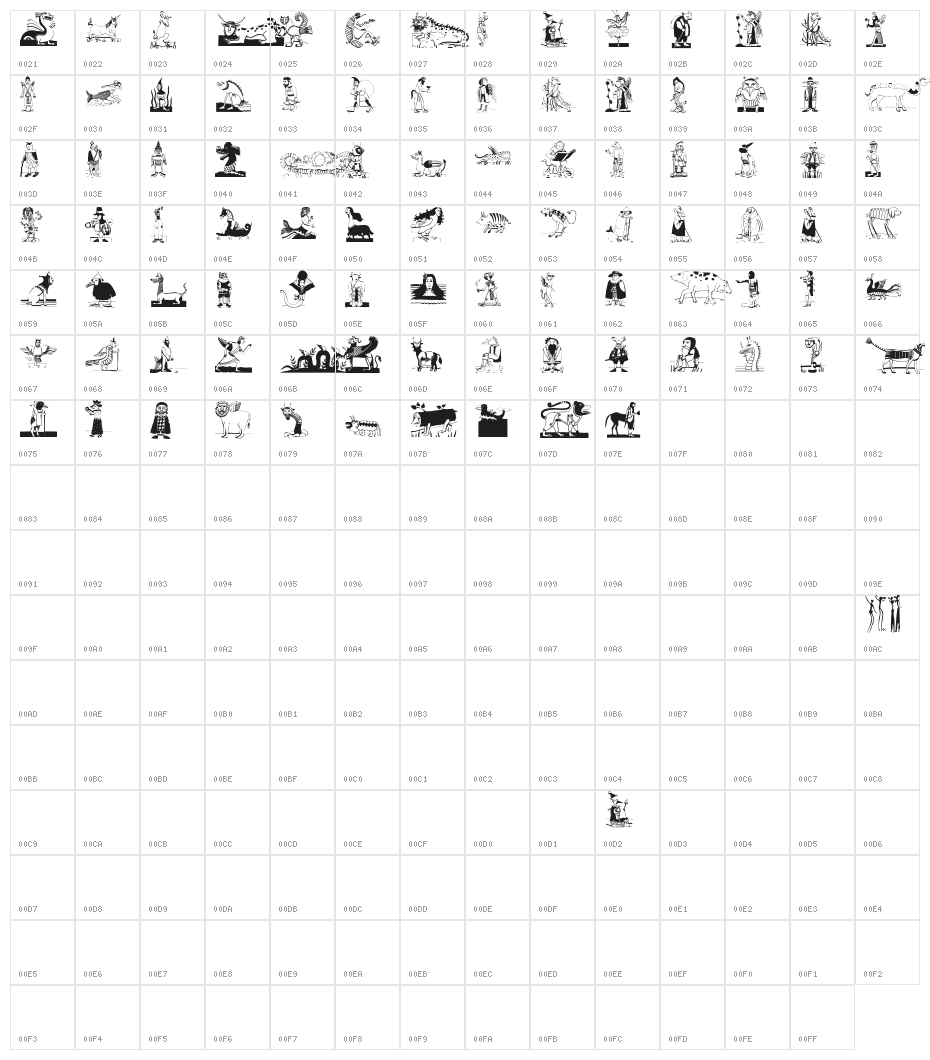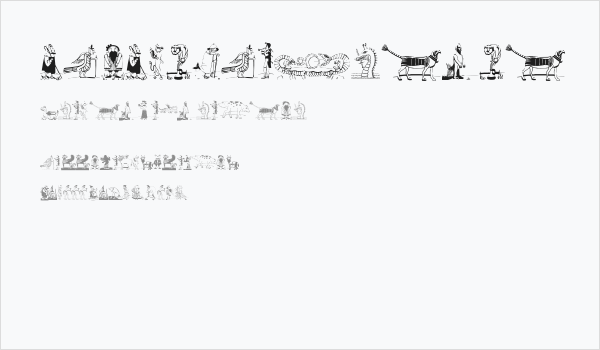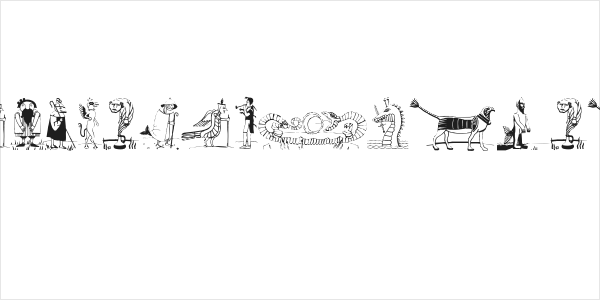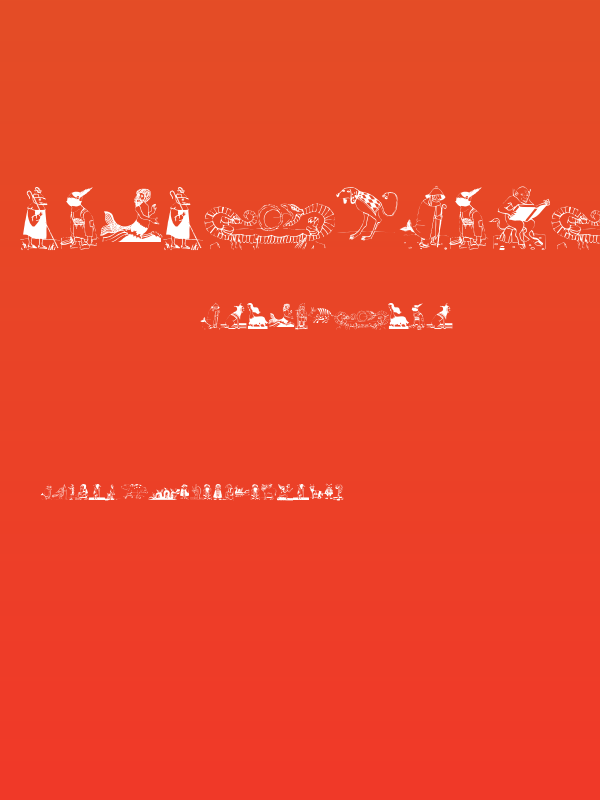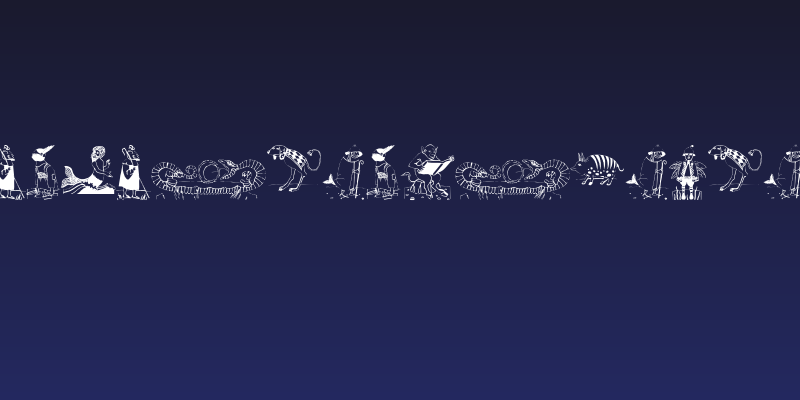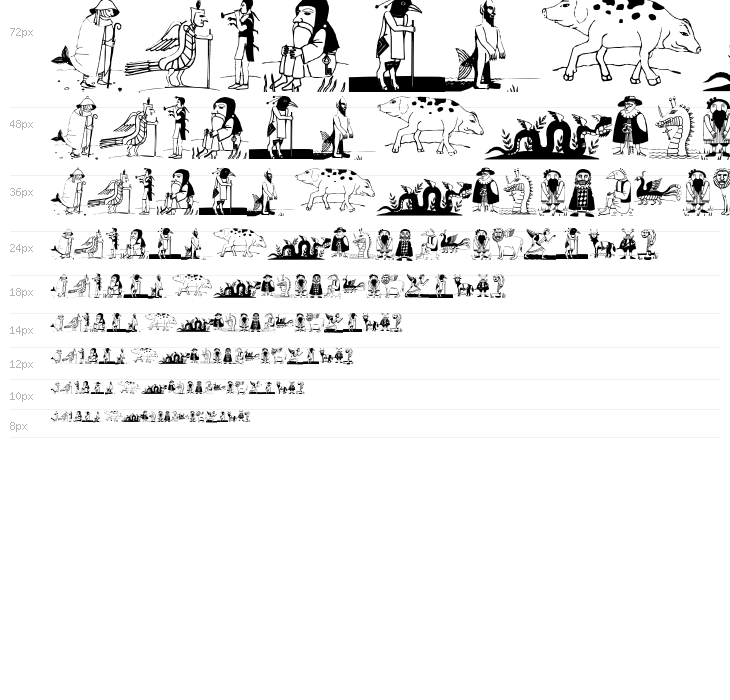
WhoWasTheArtist Font
WhoWasTheArtist Description
A highly decorative and illustrative typeface where each character is represented by a whimsical, detailed drawing inspired by ancient or mythological figures and creatures. The style mimics hand-drawn ink illustrations, with a playful and narrative quality, featuring both humans and animals in various costumes and poses.
| Overall Style | Decorative, Playful, Mythological |
| Use Case | Display, Posters, Book covers, Themed events |
| Proposed Projects | Children's books, educational materials, fantasy games, themed posters, creative branding. |